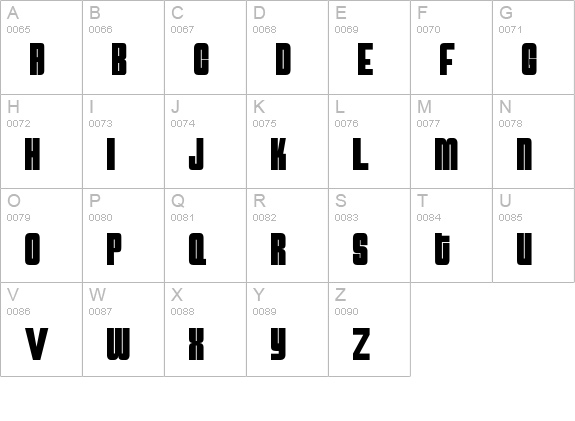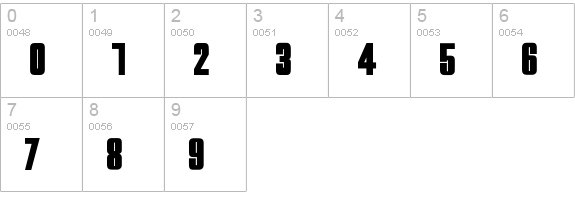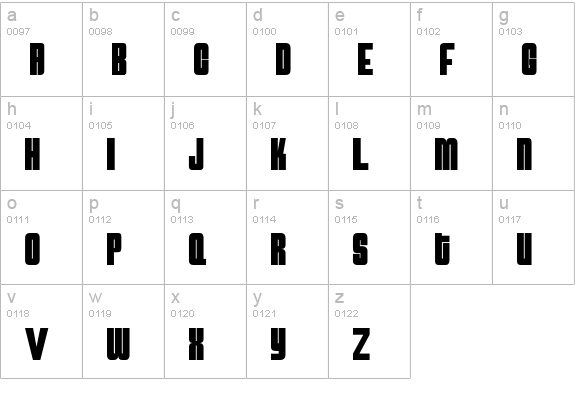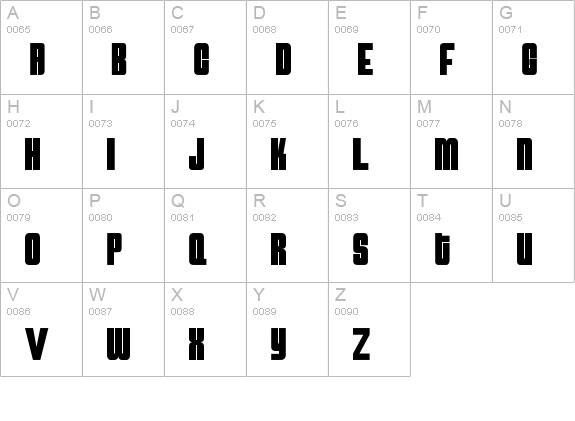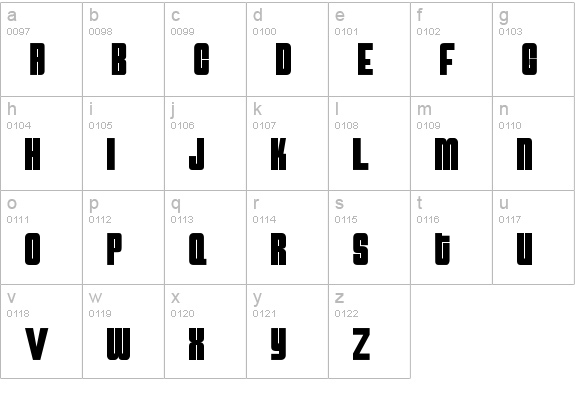
AtomicBomb Font Details
The AtomicBomb font is a bold and dynamic typeface that commands attention with its explosive design. Its sharp edges and futuristic appearance make it perfect for projects that require a powerful and impactful look. This font is available for free download at FontsMarket.com, allowing you to easily add a touch of intensity to your designs without any cost. With AtomicBomb, you can unleash your creativity and make a bold statement that will leave a lasting impression on your audience.